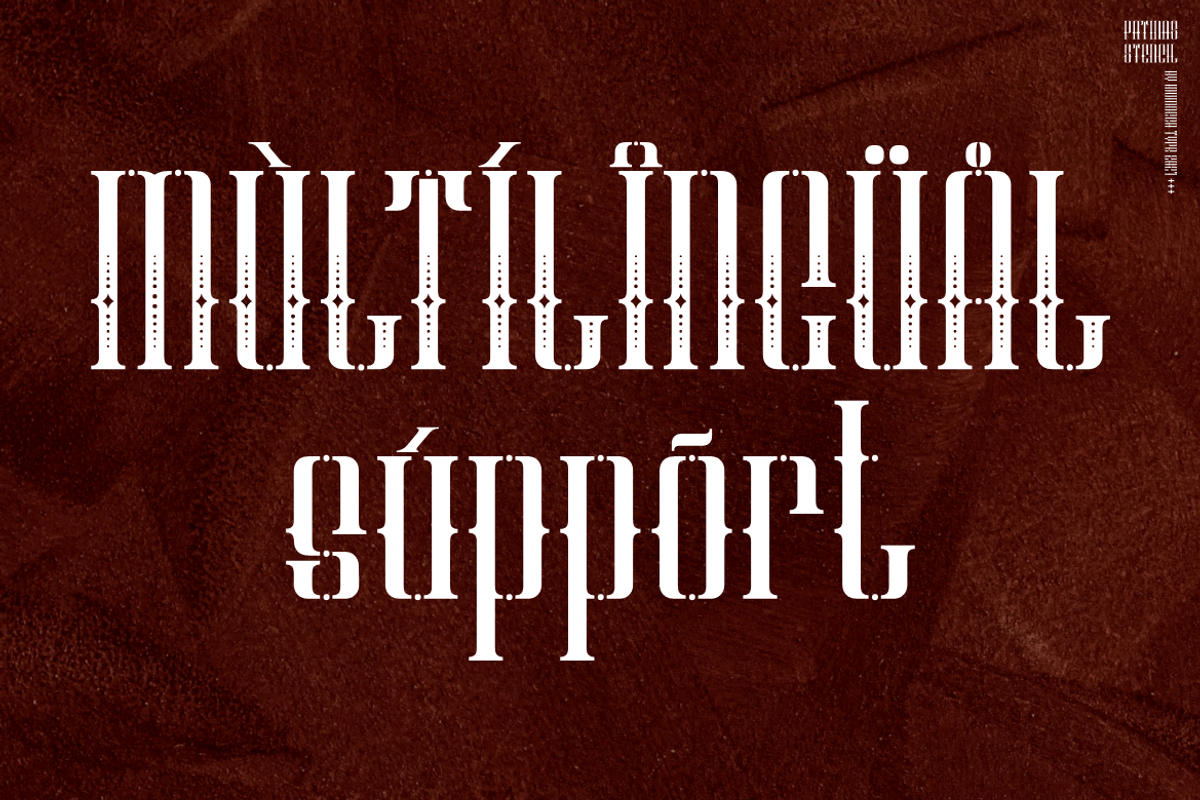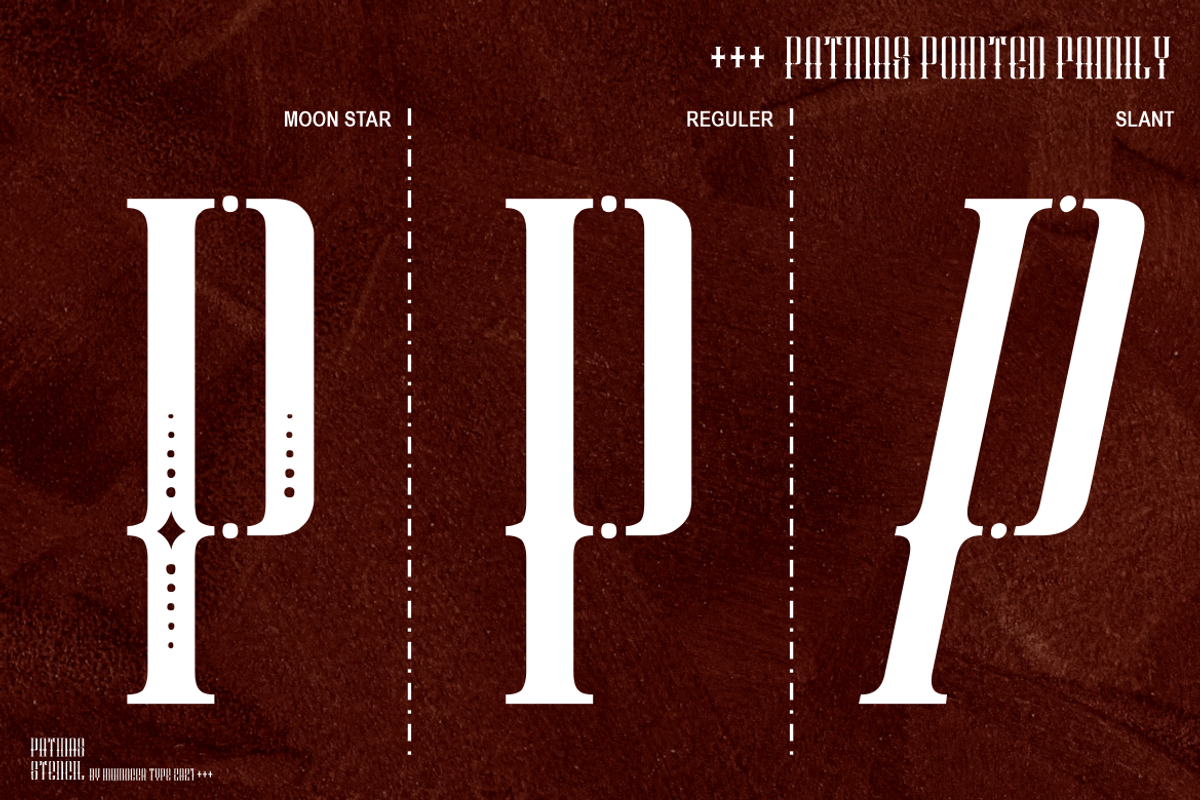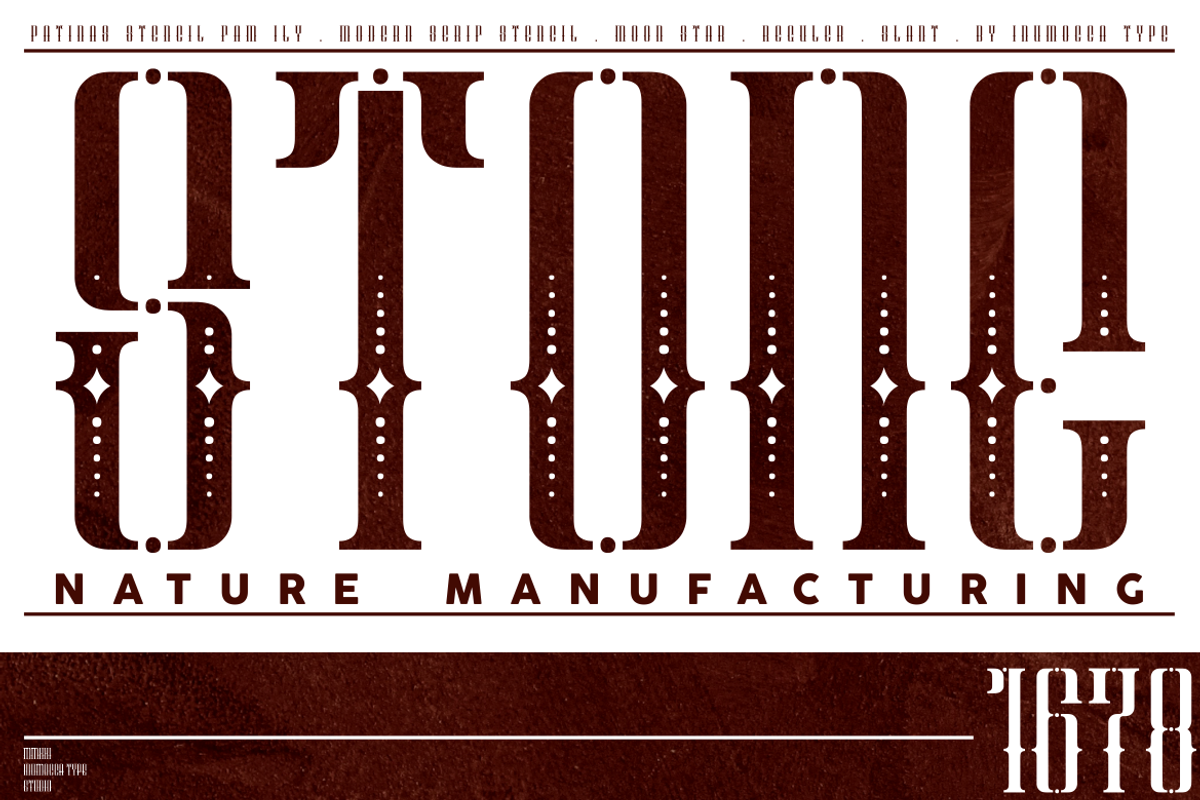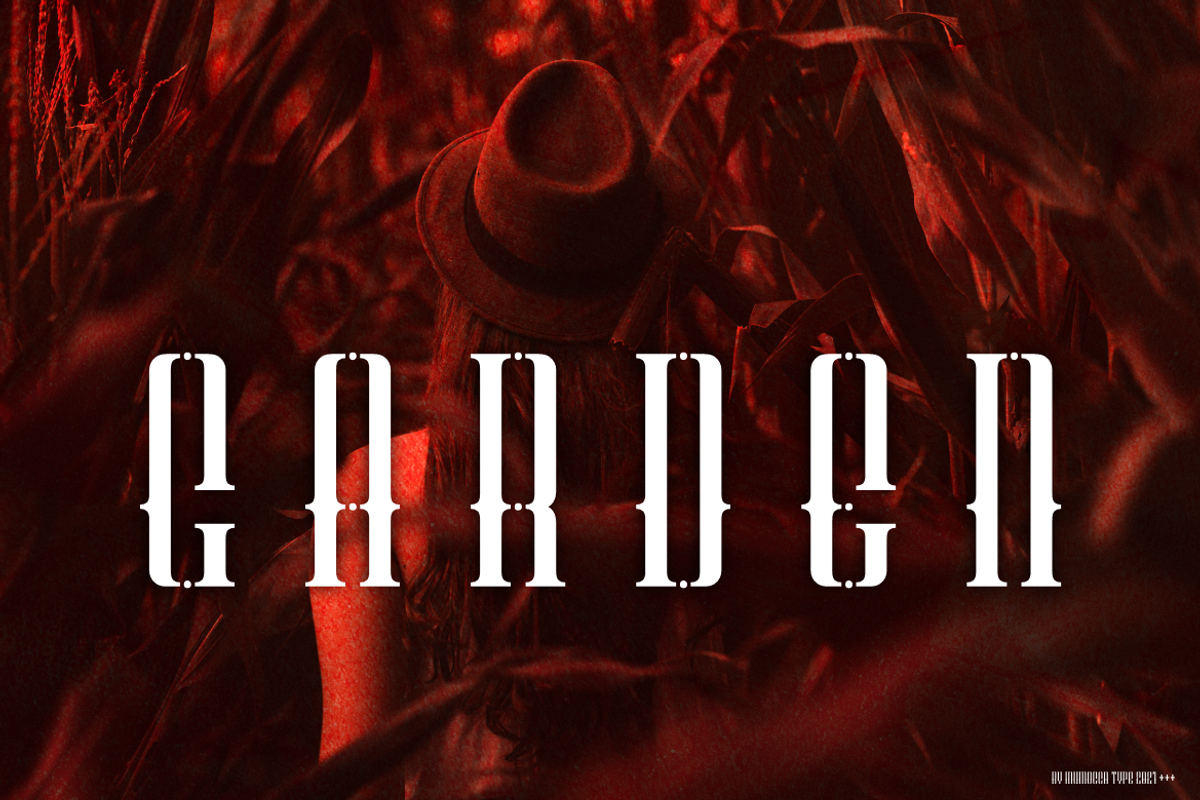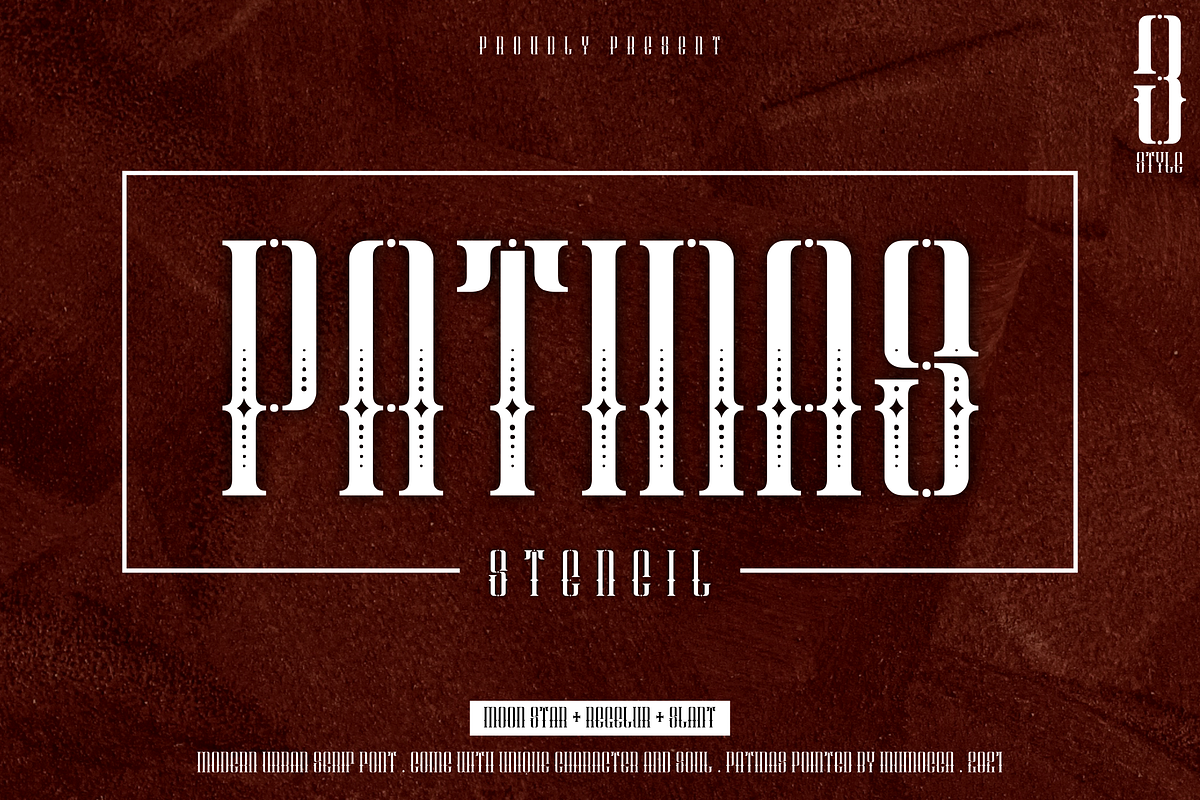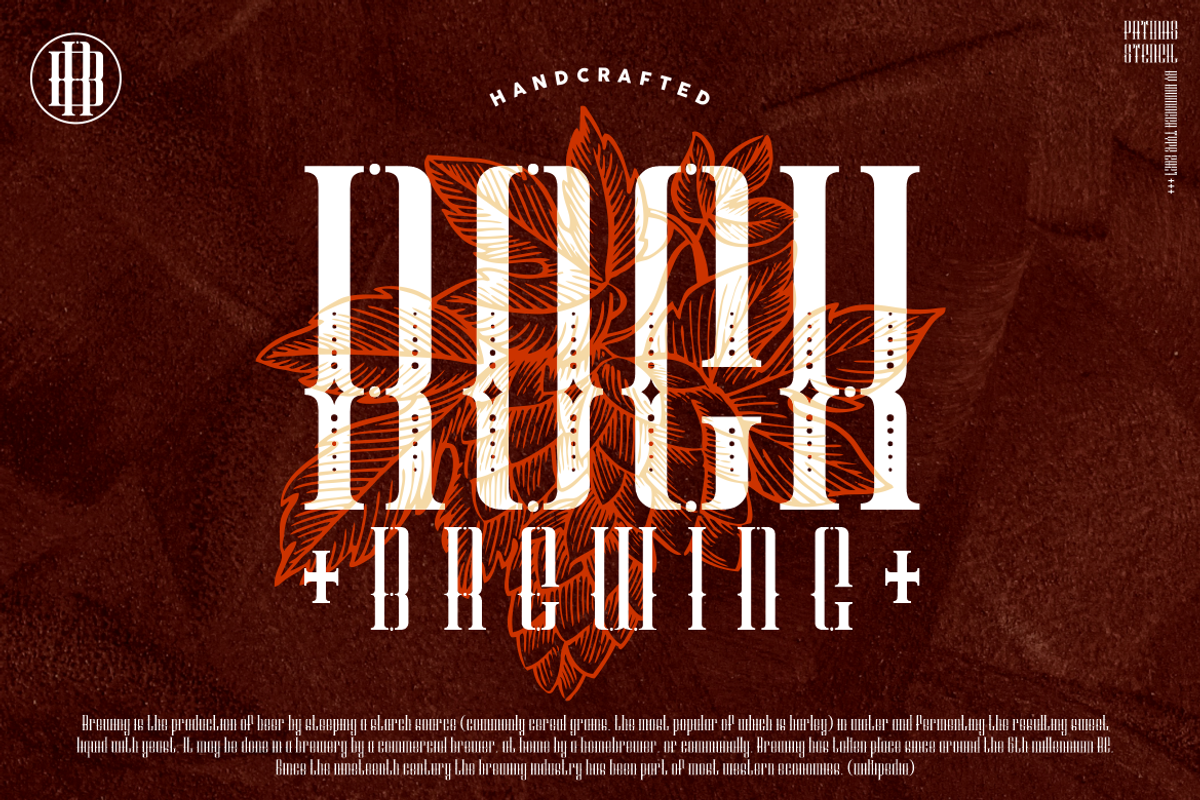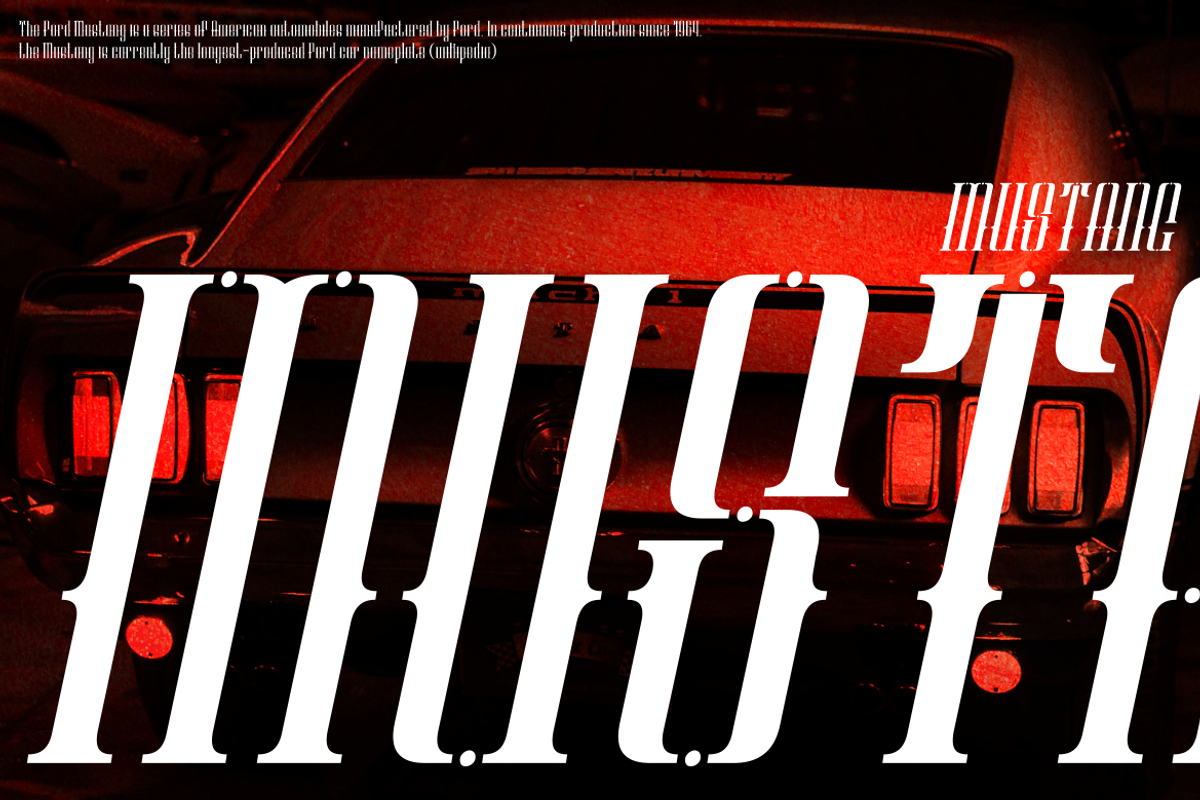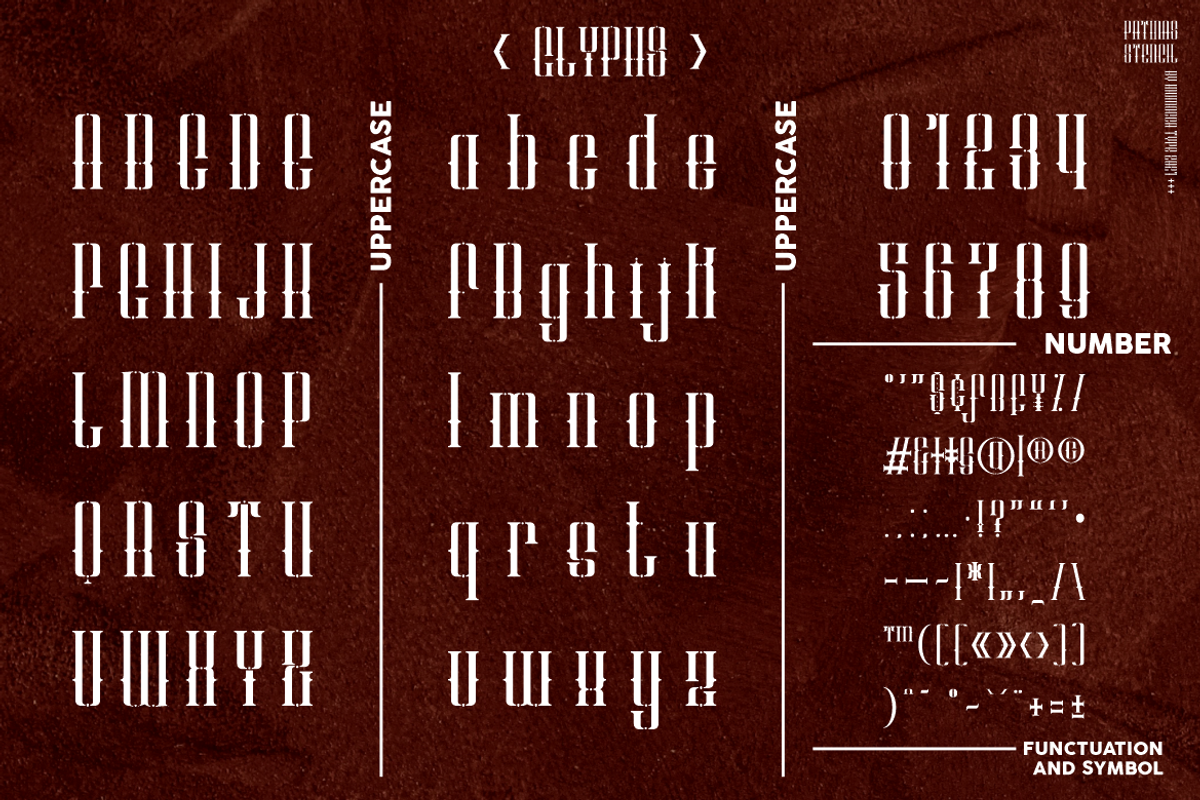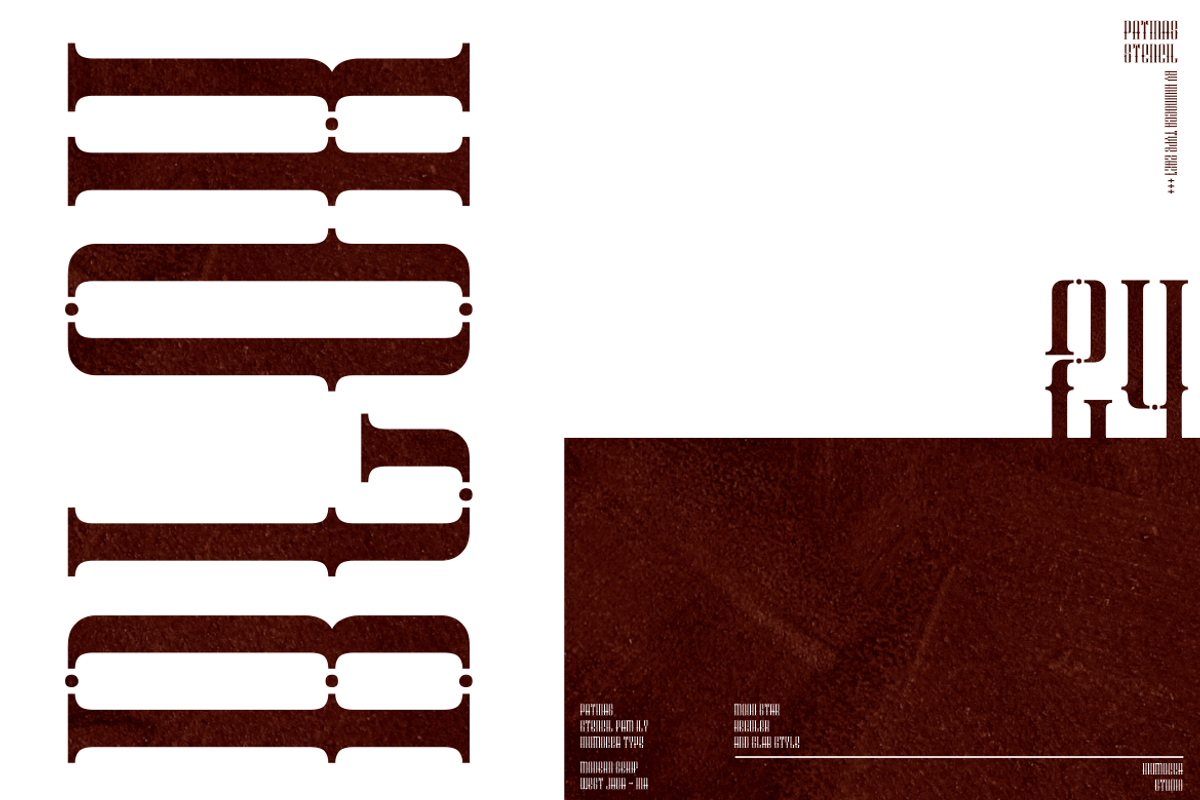
Patinas Stencil (Family Font)
Patinas Stencil Family come with 3 Style Moon Star , Reguler and Slant. Modern Urban Serif Font, Powerfull and has a great Character, Good Font to use for covering your Project, like Branding, Headline Letter, Flyer, Signage, Quotes, Poster Typography, Bookcover, Magazine cover, Poster, Quotes Lettering, Logos, and more your project design.
- Unique glyphs
- Multilingual Characters Support
- UPPERCASE
- Numeric
- Symbol
- Punctuation Character